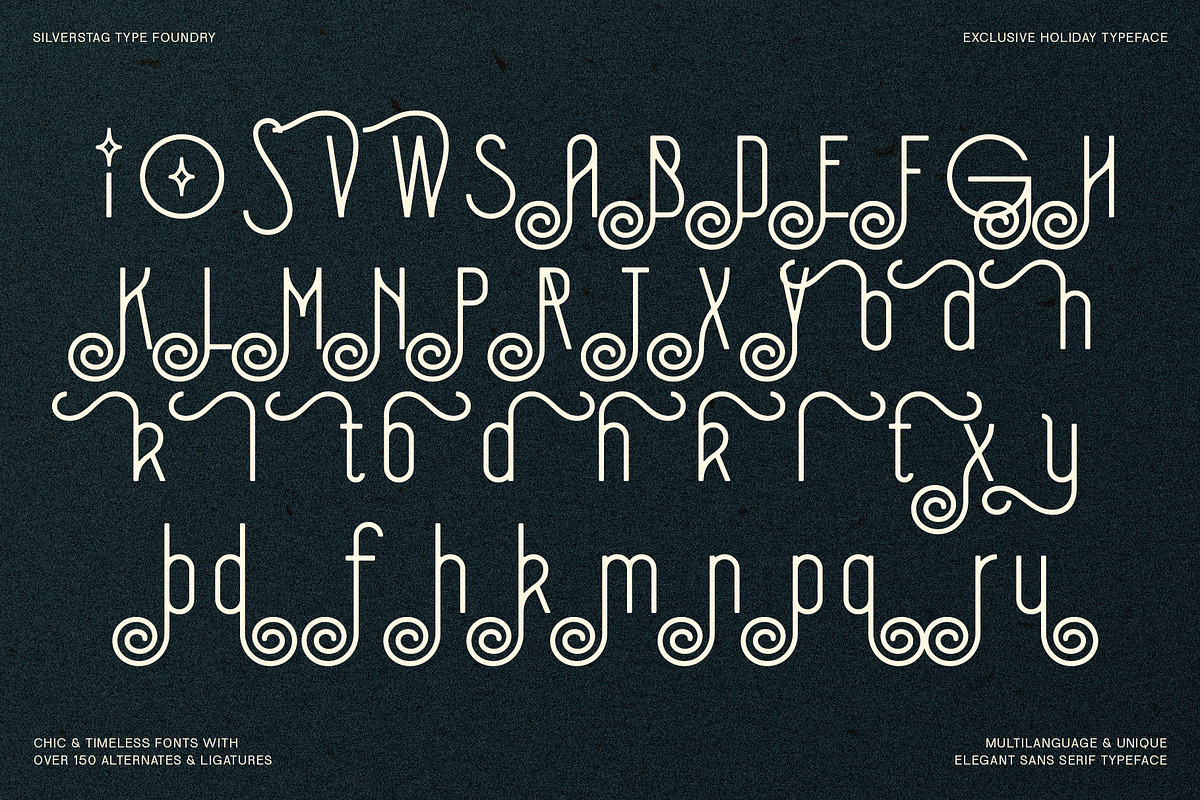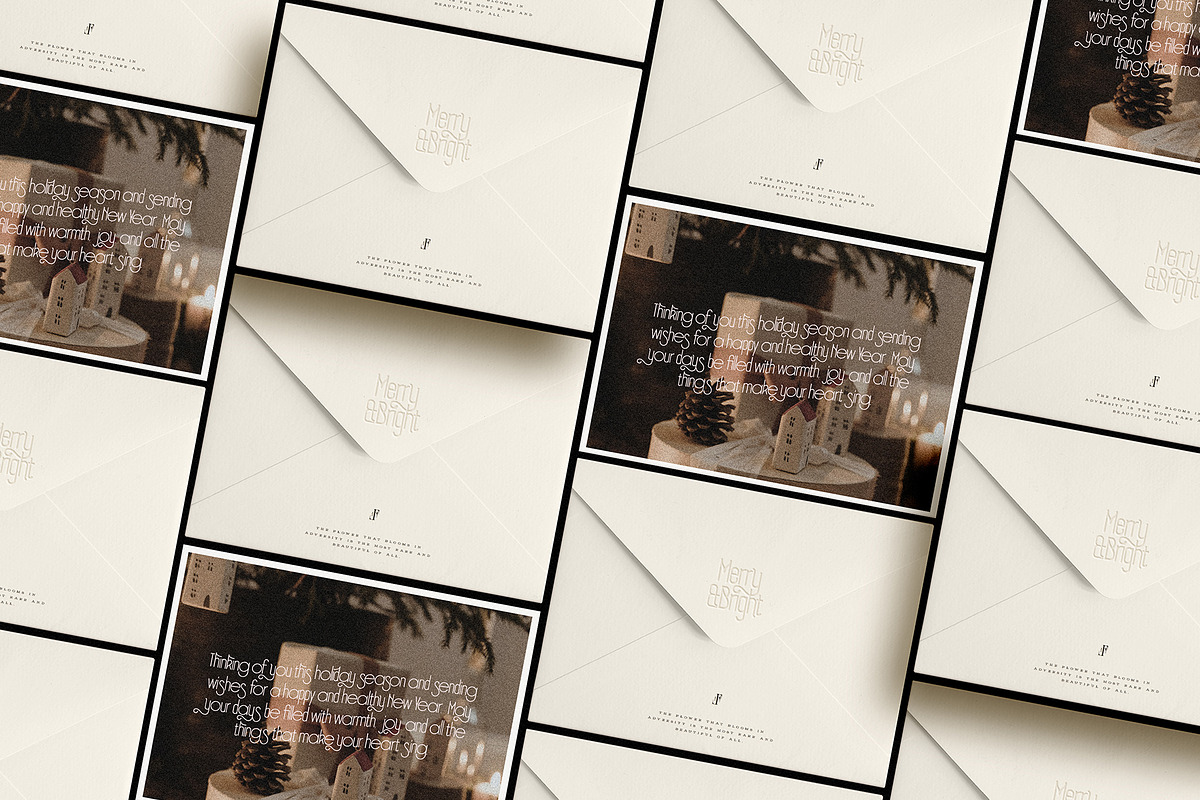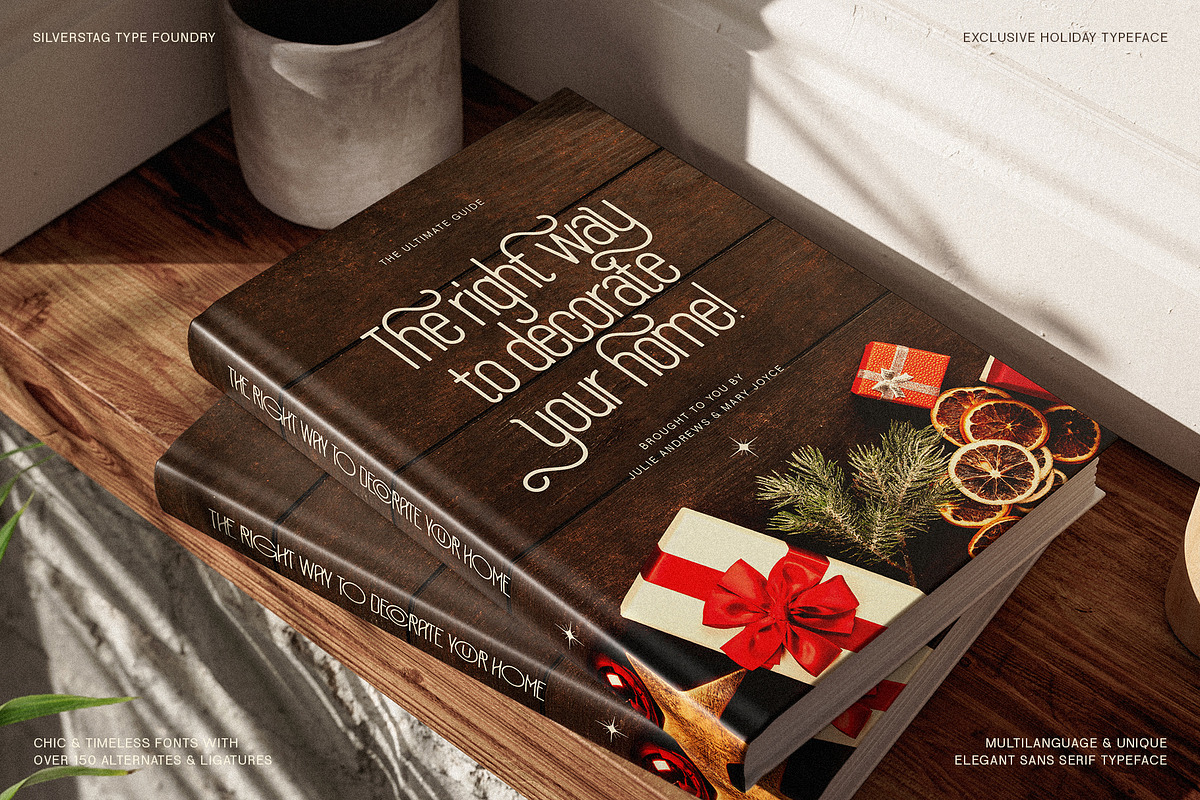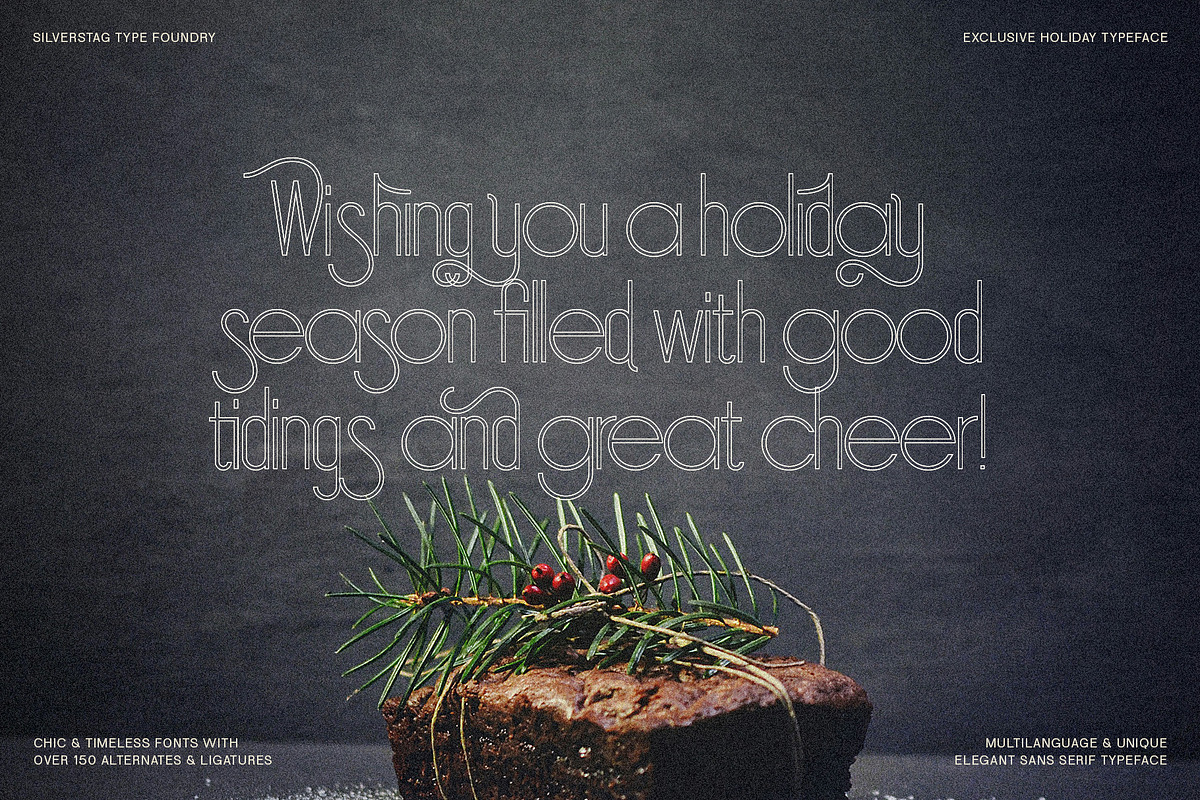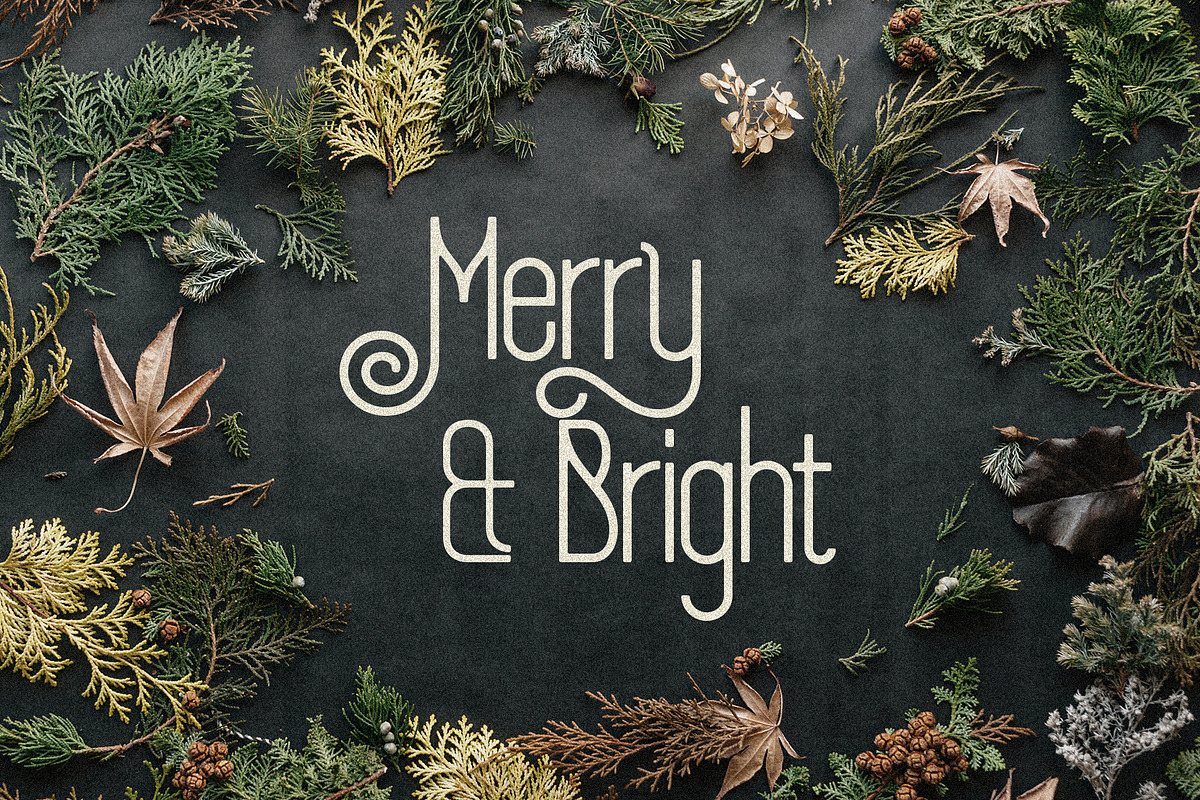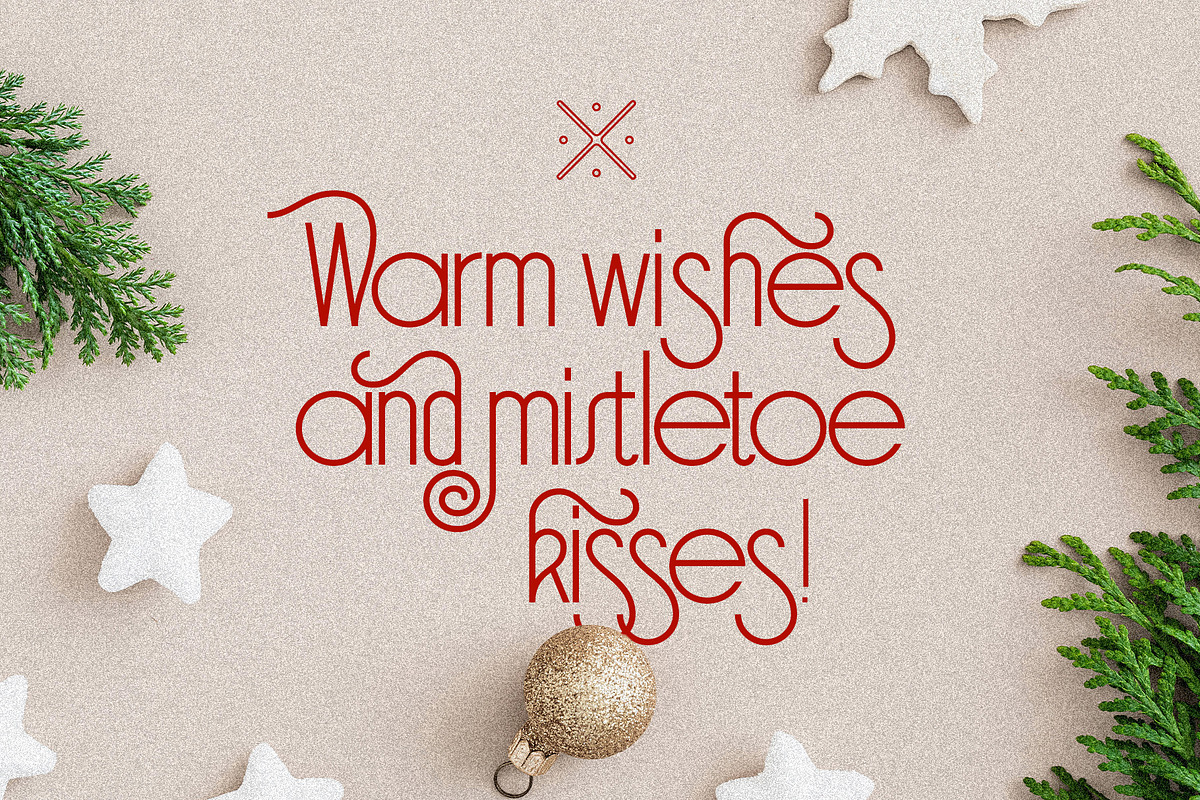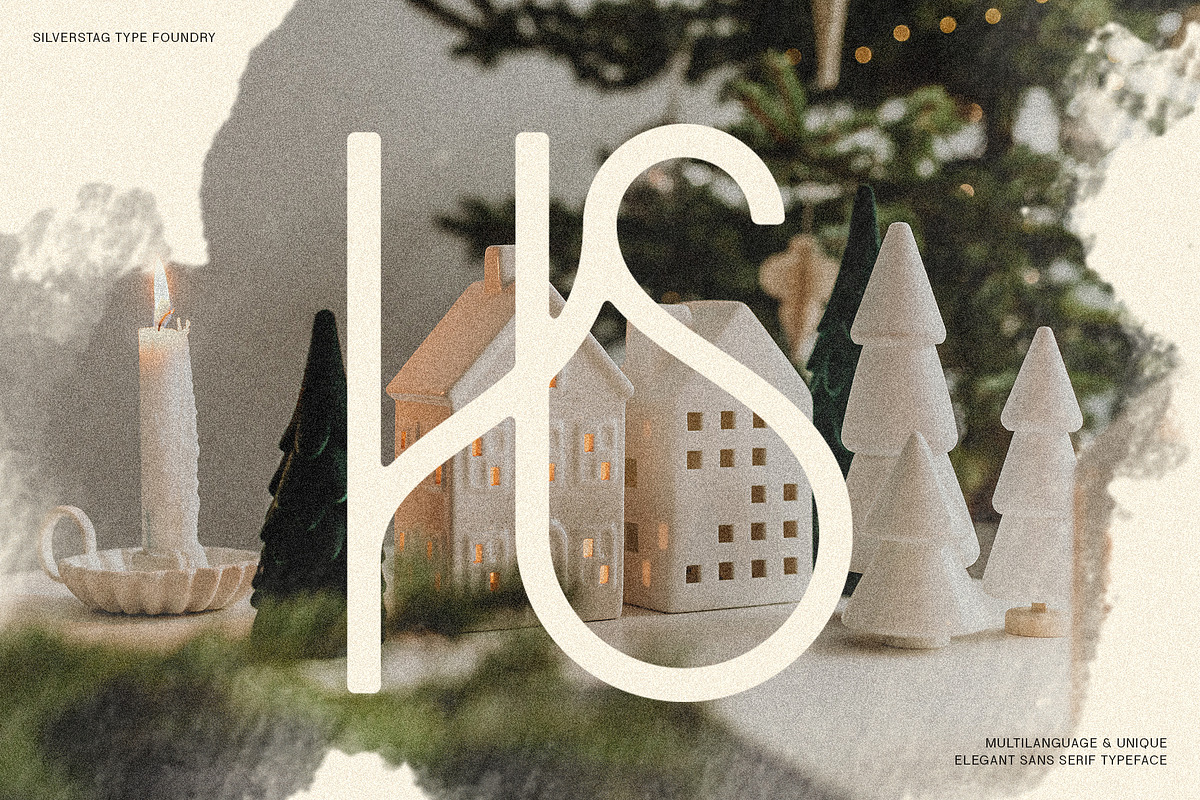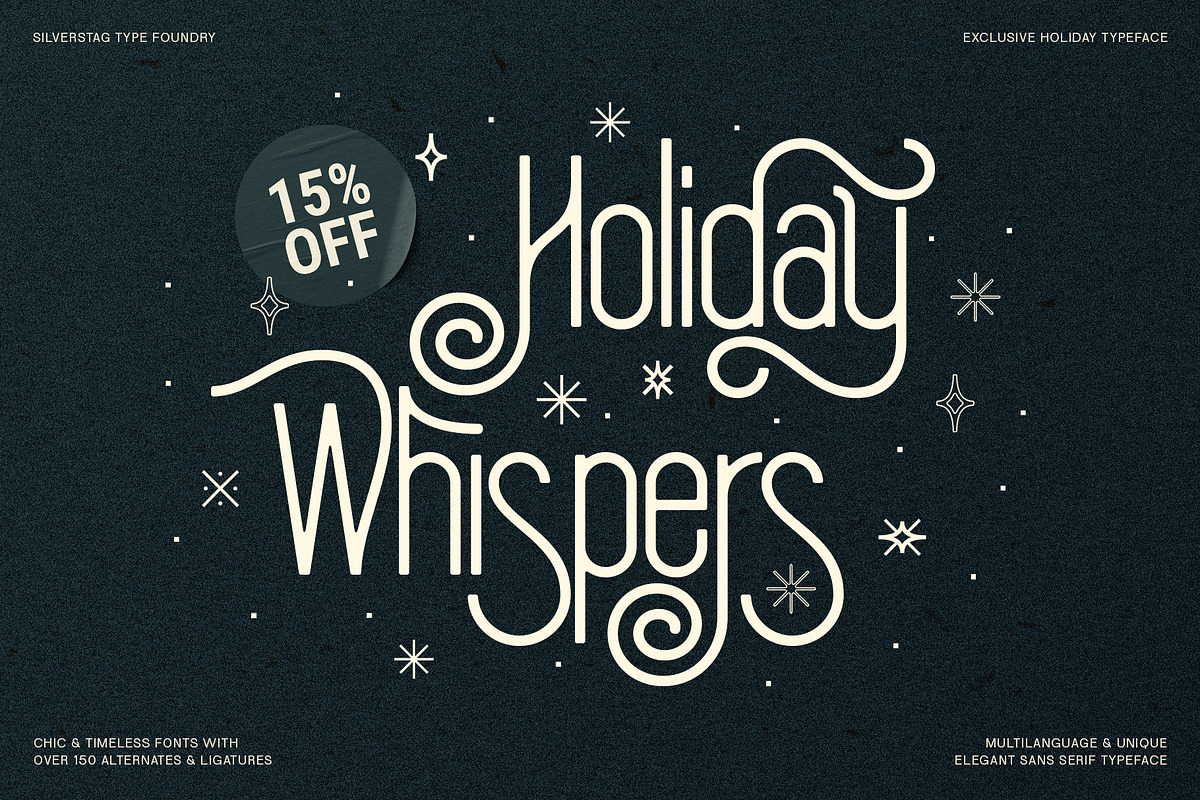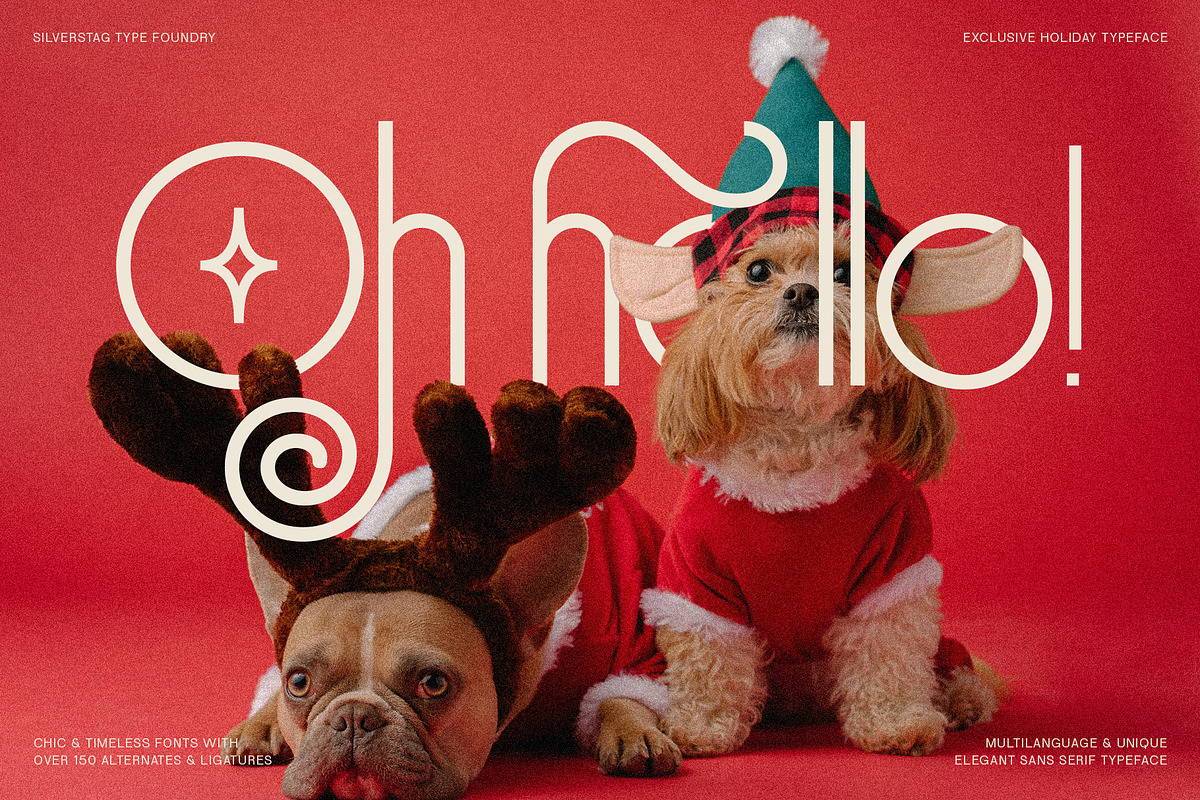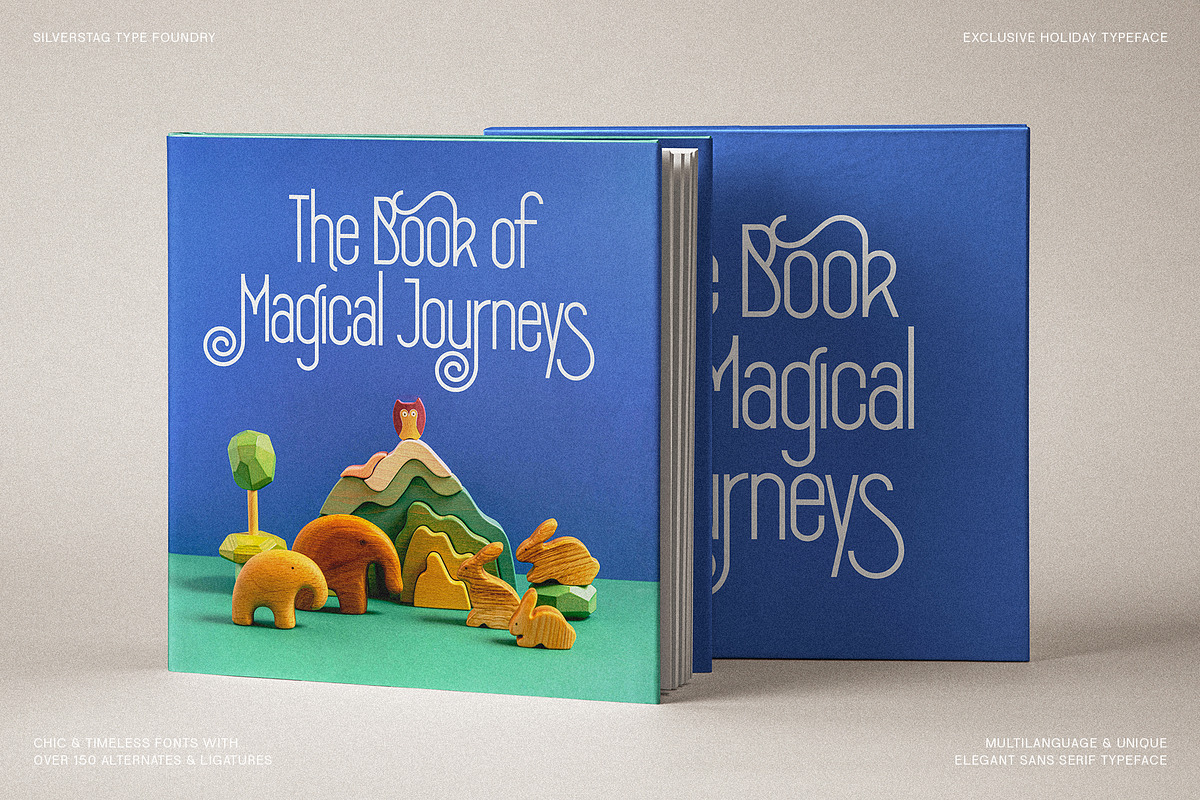
SLTF Holiday Whispers Typeface
Embrace the magic of the holiday season with SLTF Holiday Whispers, a decorative sans serif font that's as enchanting as a winter wonderland. This typeface is designed to add a touch of elegance and whimsy to your festive creations, from greeting cards and invitations to social media graphics and holiday branding.
SLTF Holiday Whispers features a unique blend of classic and contemporary elements. Its clean lines and smooth curves create a timeless aesthetic, while playful swirls, swashes, and decorative alternates add a touch of festive flair.
Here's what makes SLTF Holiday Whispers truly special:
- Versatile & Expressive: With over 150 alternates and ligatures, you can create truly unique and captivating typography that captures the spirit of the holidays.
- Multilingual Support: Spread holiday cheer across the globe with support for over 90 languages.
- Festive Flourishes: Add a touch of magic with beautiful swirls, swashes, and five unique star designs (accessible by typing STAR1 to STAR5).
- Four Font Variations: Choose from regular, outlined, rounded, and rounded outline styles to perfectly match your design aesthetic.
SLTF Holiday Whispers is perfect for:
- Holiday cards and invitations: Create personalized greetings that will delight your friends and family.
- Social media graphics: Add a festive touch to your posts and stories.
- Branding and marketing materials: Elevate your holiday campaigns with a touch of elegance.
- Website design: Give your website a festive makeover that will captivate your visitors.
- Packaging and labels: Add a touch of magic to your holiday products.
Capture the spirit of the season with SLTF Holiday Whispers. This enchanting typeface is designed to bring your holiday creations to life with its unique blend of elegance, versatility, and festive charm.